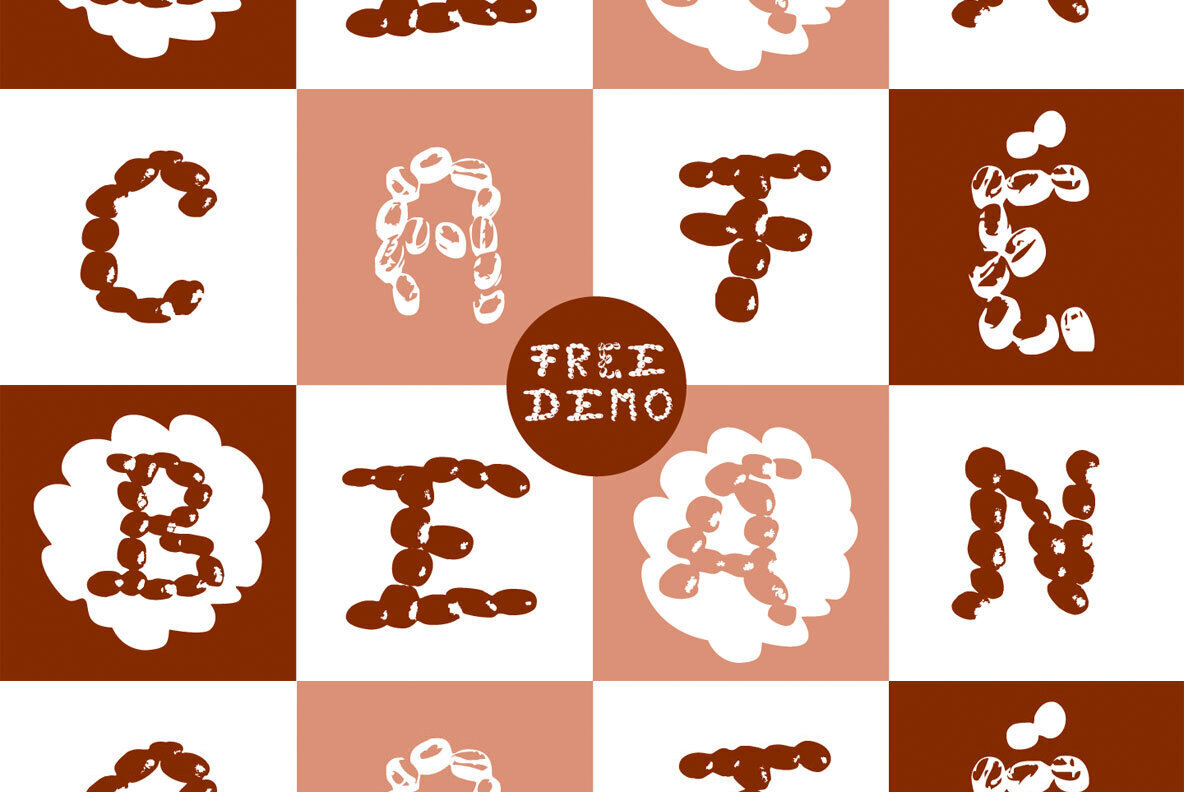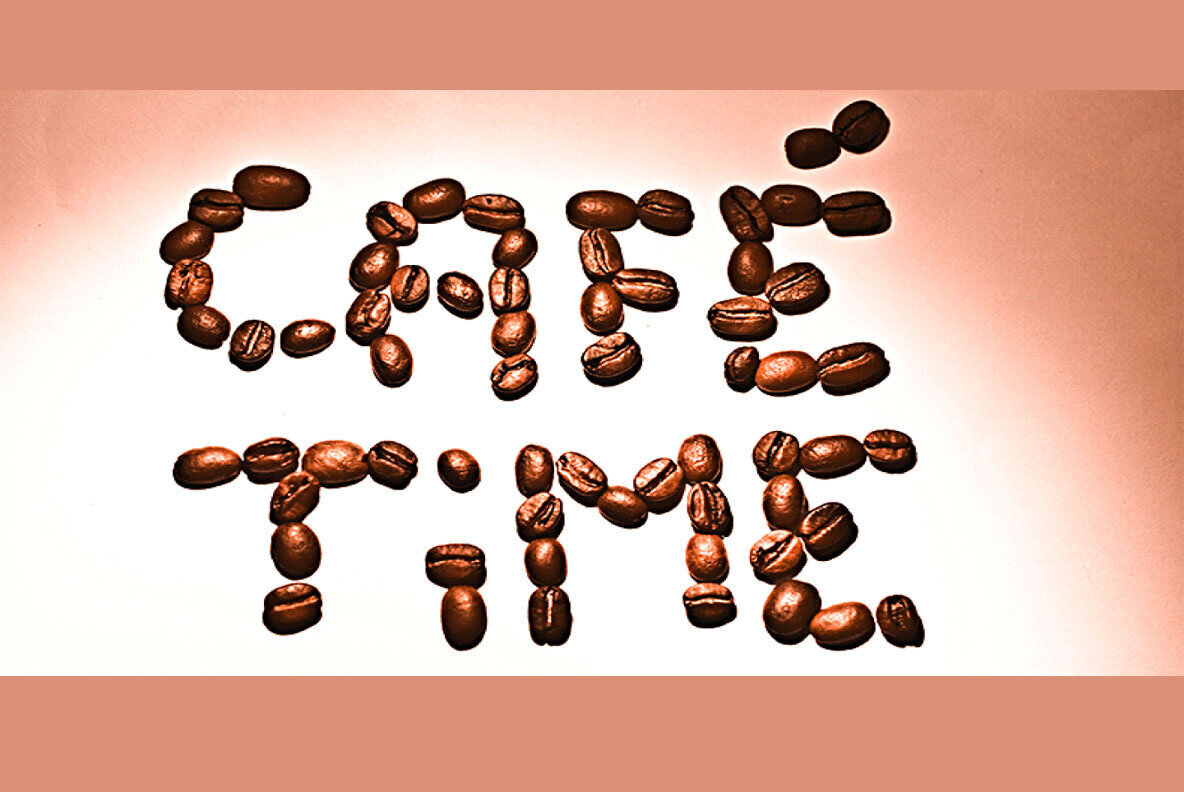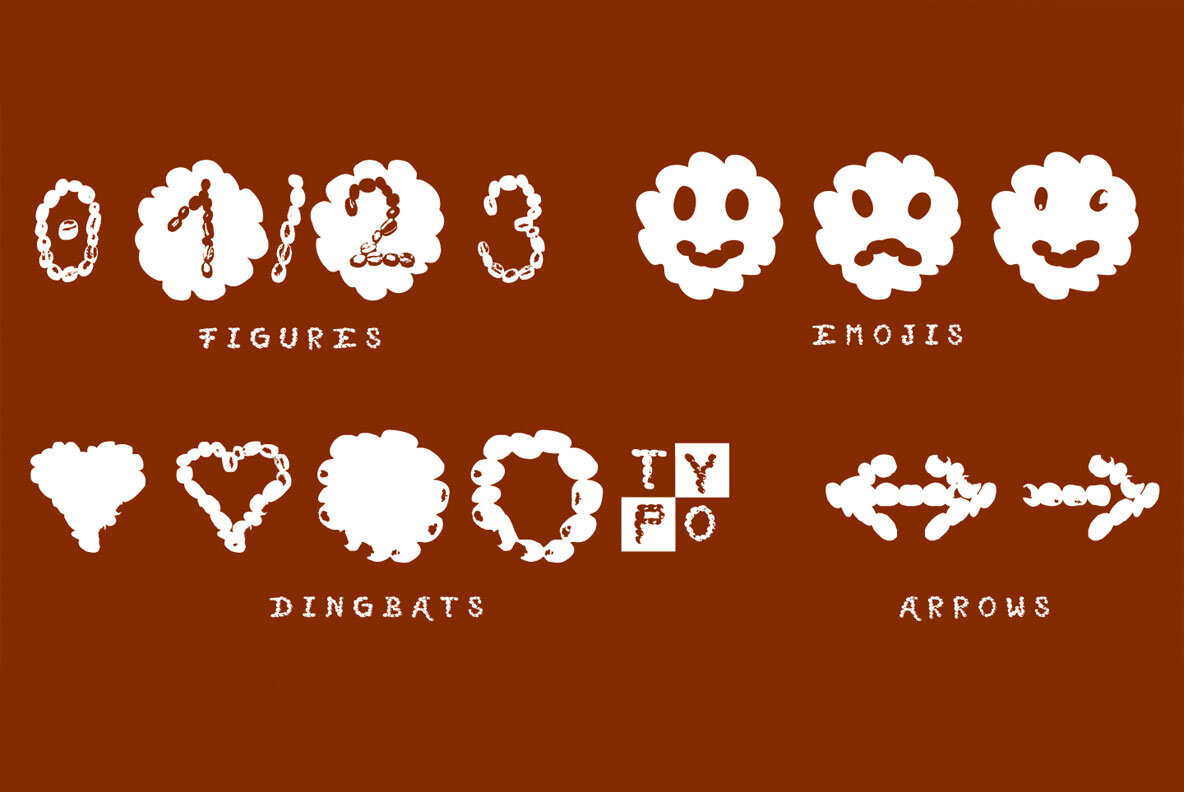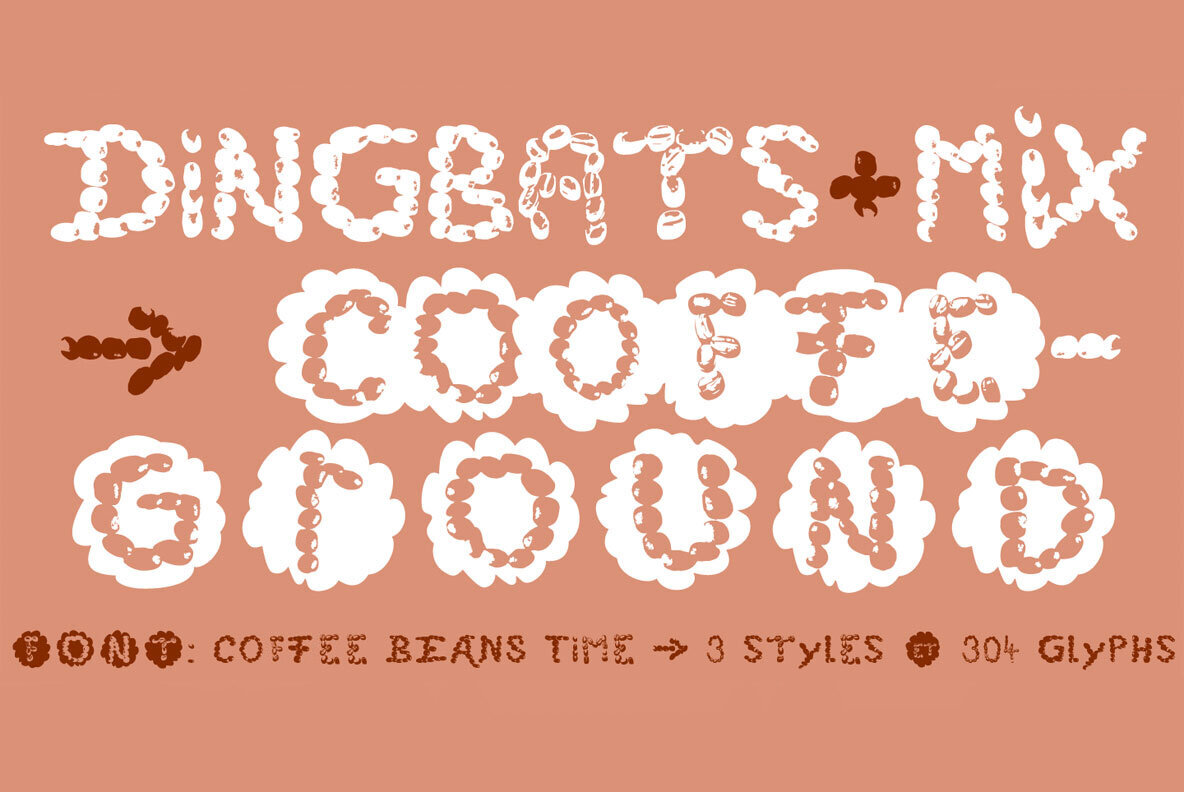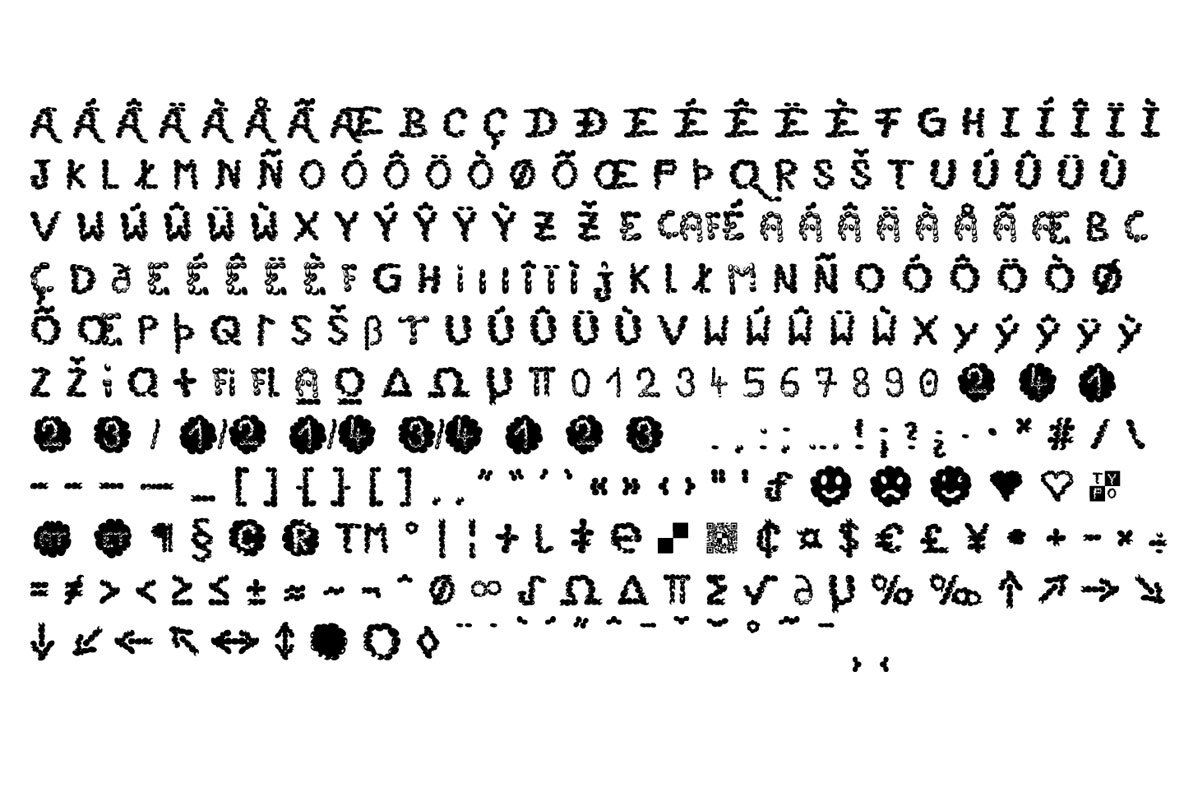
Coffee Beans Time Font
The typeface Coffee Beans Time is designed from 2018–2022 for the font foundry Typo Graphic Design by Manuel Viergutz and Annelena Grascht as a graphic design and photography project.
The display font based on the original coffee beans and create a dingbat pattern.
3 font-styles (Dingbats, Mix, Coffee Ground) with 304 glyphs (Adobe Latin 2) incl. decorative extras like icons, arrows, dingbats, emojis, symbols, geometric shapes (type the word #LOVE for or #SMILE for as OpenType-Feature dlig) and stylistic alternates (2 stylistic sets).
For use in logos, magazines, posters, advertisement plus as webfont for decorative headlines. The font works best for display size.